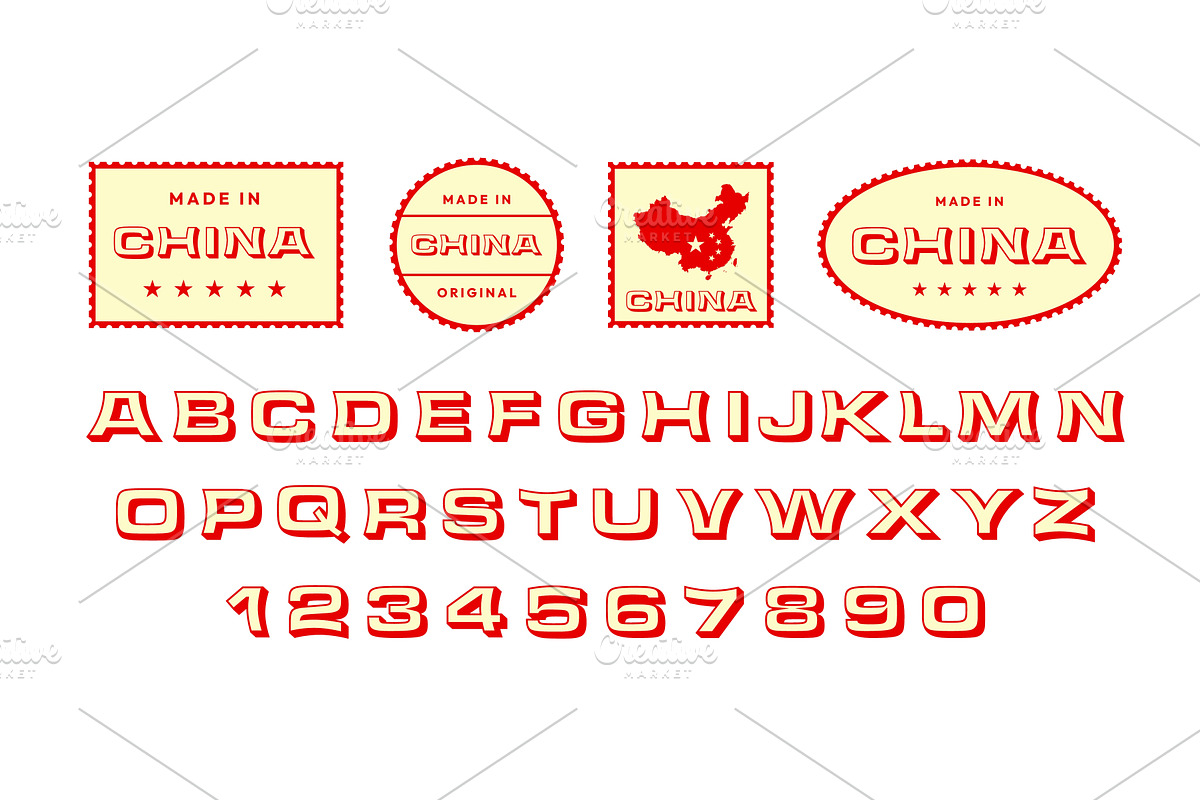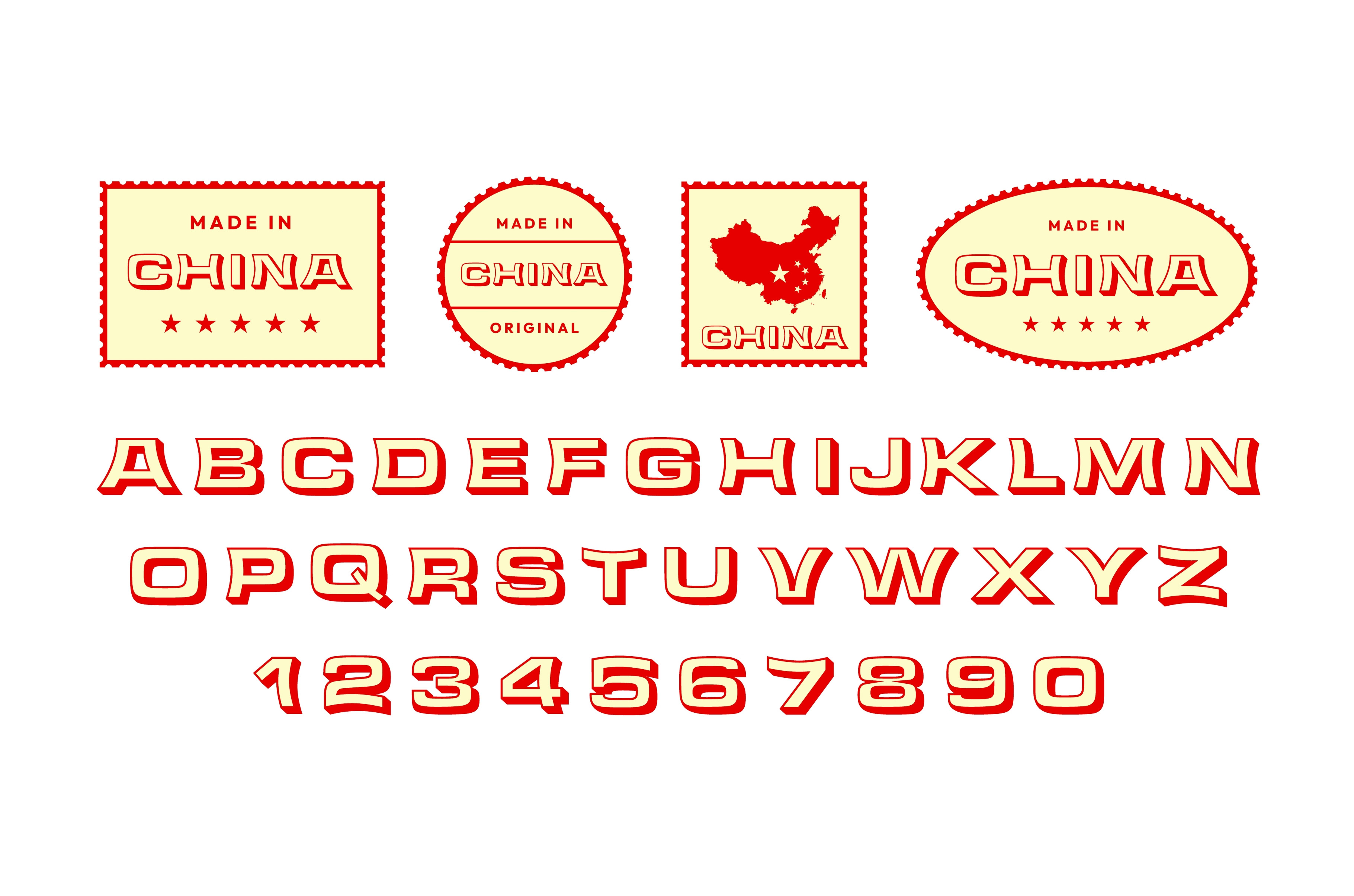
Asian typeface. Chinese font for
Asian typeface. Chinese font for retro badge stamps and made in China label designs. Stylized letters and numbers, decorative oriental alphabet vector set.